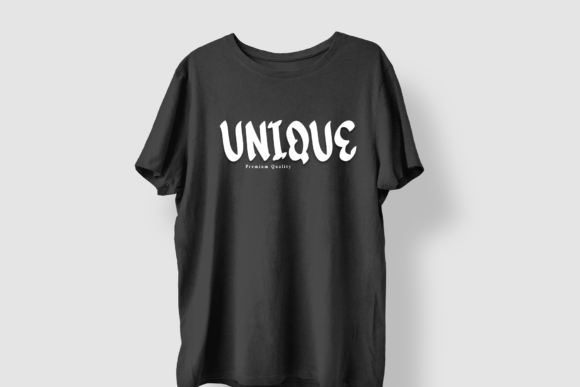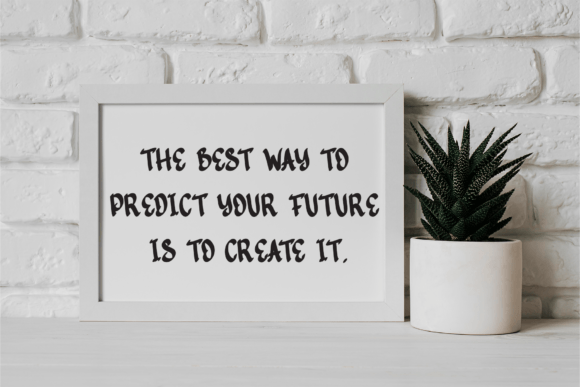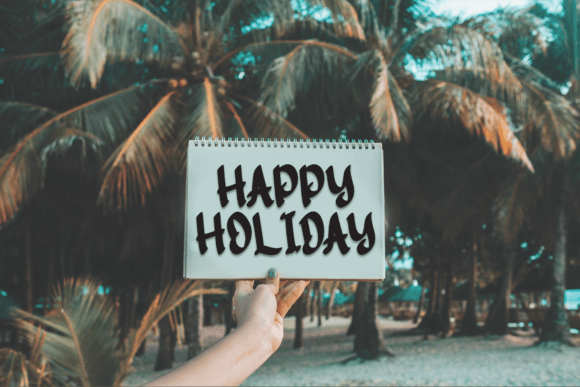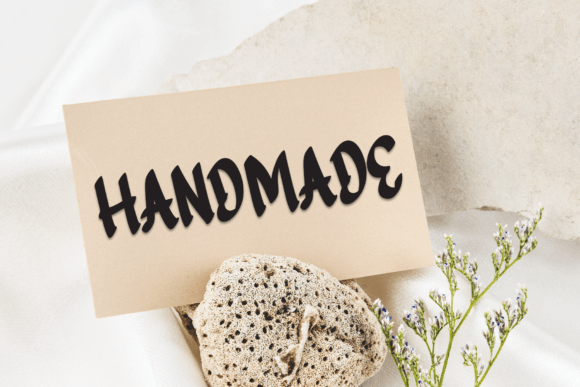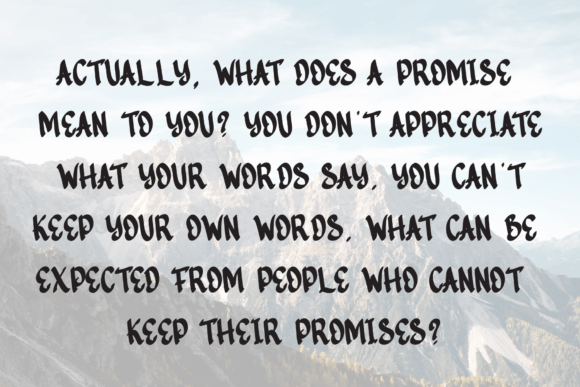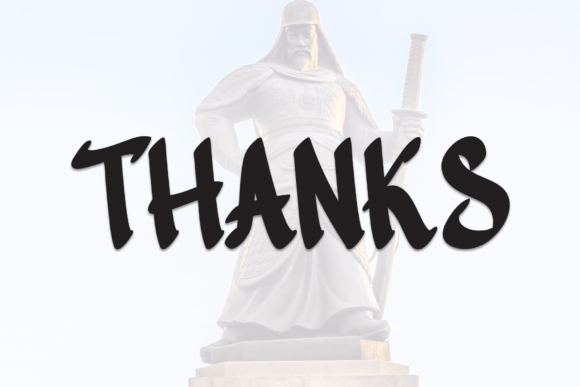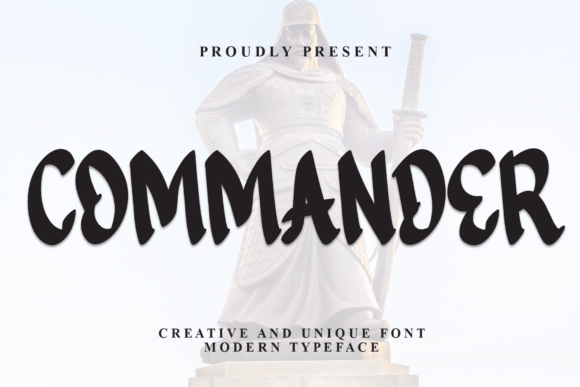
Introducing Commander Font: The Sweet and Friendly Handwritten Font
Are you tired of using the same old fonts in your designs? Look no further! Commander Font is a beautiful, handwritten font that is sure to add a touch of personality to your projects. With its natural and unique style, Commander Font is incredibly versatile and can be used in a wide range of designs, from rustic and vintage to modern and playful.
The Characteristics of Commander Font
Commander Font is a sweet and friendly handwritten font that is perfect for designers and crafters looking to add a personal touch to their work. Its natural and unique style makes it incredibly fitting to a large pool of designs, and the only limit is your imagination! Here are some of the key characteristics that make Commander Font stand out:
- Handwritten style: Commander Font has a beautiful, handwritten style that gives it a personal and unique feel.
- Natural look: The font has a natural look that makes it perfect for designs that require a organic and earthy feel.
- Unique style: Commander Font has a one-of-a-kind style that sets it apart from other fonts.
- Versatile: The font is incredibly versatile and can be used in a wide range of designs.
What Can You Use Commander Font For?
Commander Font is a versatile font that can be used in a wide range of designs and projects. Here are some ideas to get you started:
- Branding and logos: Use Commander Font to create a unique and memorable logo for your brand.
- Invitations and greeting cards: The font’s handwritten style makes it perfect for invitations and greeting cards.
- Social media graphics: Use Commander Font to add a personal touch to your social media graphics.
- Packaging design: The font’s natural look makes it perfect for packaging design, especially for products that require a organic and earthy feel.
- Web design: Commander Font can be used in web design to add a personal touch to your website.
Why Choose Commander Font?
There are many fonts available, but Commander Font stands out from the rest. Here are some reasons why you should choose Commander Font:
- Unique style: Commander Font has a unique style that sets it apart from other fonts.
- Easy to read: The font is easy to read, making it perfect for body text and headings.
- High-quality: Commander Font is a high-quality font that is designed to deliver exceptional results.
Tips for Using Commander Font
Here are some tips for using Commander Font:
- Use it with a contrasting font: Pair Commander Font with a contrasting font to create visual interest.
- Experiment with different sizes: Experiment with different font sizes to create a hierarchy of text.
- Use it sparingly: Use Commander Font sparingly to create a focal point in your design.